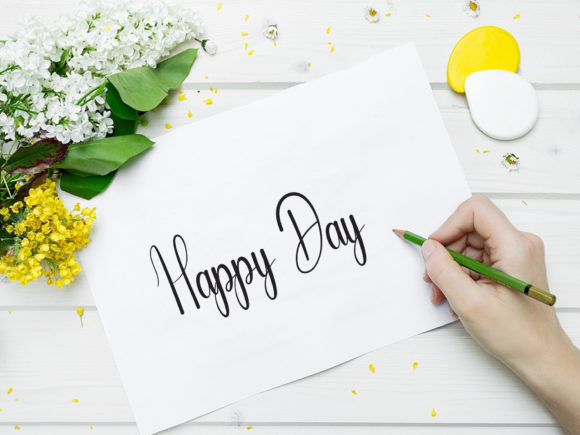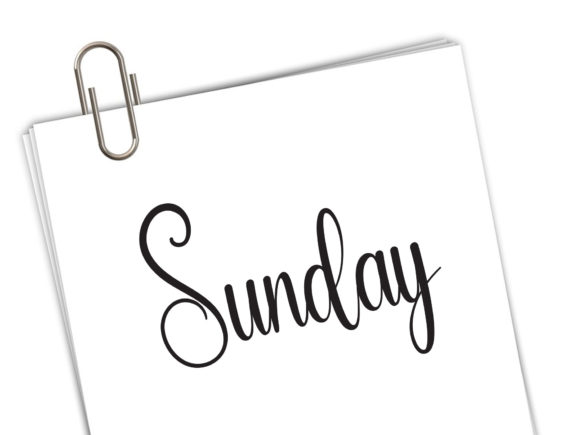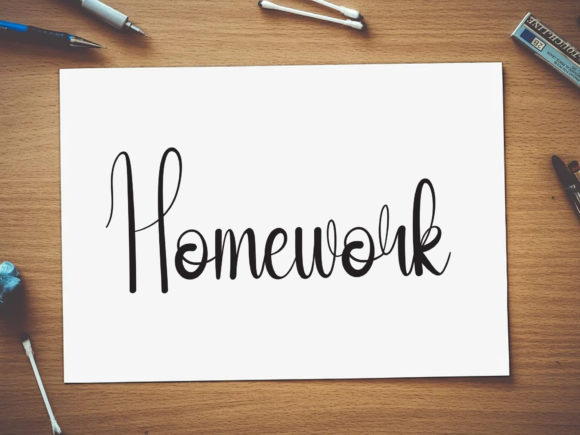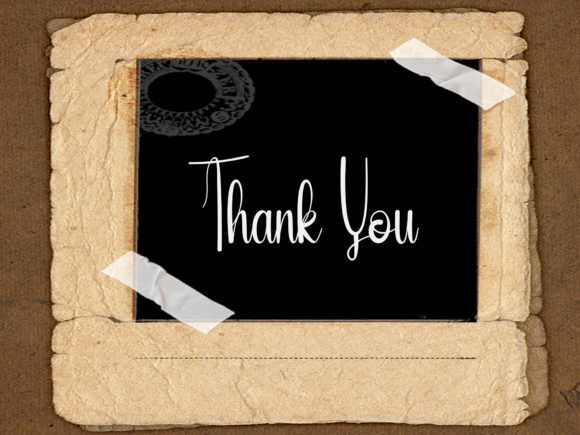
Amanda Font: The Sweet Handwritten Font for Creative Projects
Are you a designer or crafter looking for a font that can add a personal touch to your creative projects? Look no further than Amanda Font, a sweet handwritten font that is made with great care to produce the expected outcomes. In this article, we’ll take a closer look at Amanda Font, its features, and how it can be used to elevate your designs.
What is Amanda Font?
Amanda Font is a beautiful handwritten font that is designed to bring a touch of warmth and personality to your designs. It is a carefully crafted font that is perfect for a variety of creative projects, including branding, packaging, and marketing materials. With its sweet and elegant letterforms, Amanda Font is sure to capture the attention of your audience and leave a lasting impression.
Features of Amanda Font
Amanda Font comes with a range of features that make it an ideal choice for designers and crafters. Some of its key features include:
- Handwritten style: Amanda Font has a beautiful handwritten style that gives it a personal and unique touch.
- Elegant letterforms: The font features elegant letterforms that are carefully crafted to produce a sophisticated look.
- Versatile: Amanda Font can be used for a variety of creative projects, including branding, packaging, and marketing materials.
- Easy to read: The font is easy to read, making it perfect for body text and headlines.
How to Use Amanda Font
Amanda Font can be used for a variety of creative projects, including:
- Branding: Use Amanda Font to create a unique and memorable brand identity that stands out from the crowd.
- Packaging: Add a personal touch to your packaging designs with Amanda Font.
- Marketing materials: Use Amanda Font to create eye-catching marketing materials, such as brochures, flyers, and posters.
- Stationery: Create beautiful stationery, such as business cards, letterheads, and envelopes, with Amanda Font.
Benefits of Using Amanda Font
Using Amanda Font can bring a range of benefits to your designs, including:
- Unique and memorable: Amanda Font can help you create a unique and memorable brand identity that stands out from the crowd.
- Personal touch: The font adds a personal touch to your designs, making them more relatable and engaging.
Tips for Using Amanda Font
Here are some tips for using Amanda Font:
- Use it sparingly: Use Amanda Font sparingly to create a focal point in your design.
- Pair it with other fonts: Pair Amanda Font with other fonts to create a unique and interesting combination.
- Pay attention to spacing: Pay attention to spacing and kerning to ensure that your text is easy to read.
Amanda Font is a beautiful handwritten font that is perfect for designers and crafters looking to add a personal touch to their creative projects. With its elegant letterforms, versatile design, and easy-to-use features, Amanda Font is an ideal choice for a variety of creative projects. Whether you’re looking to create a unique brand identity, add a personal touch to your packaging designs, or create eye-catching marketing materials, Amanda Font is sure to deliver.